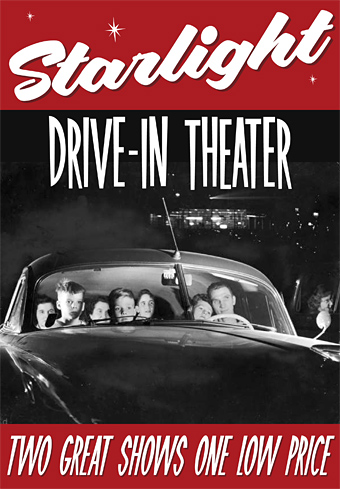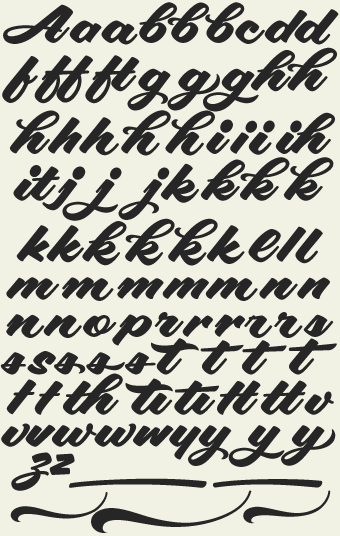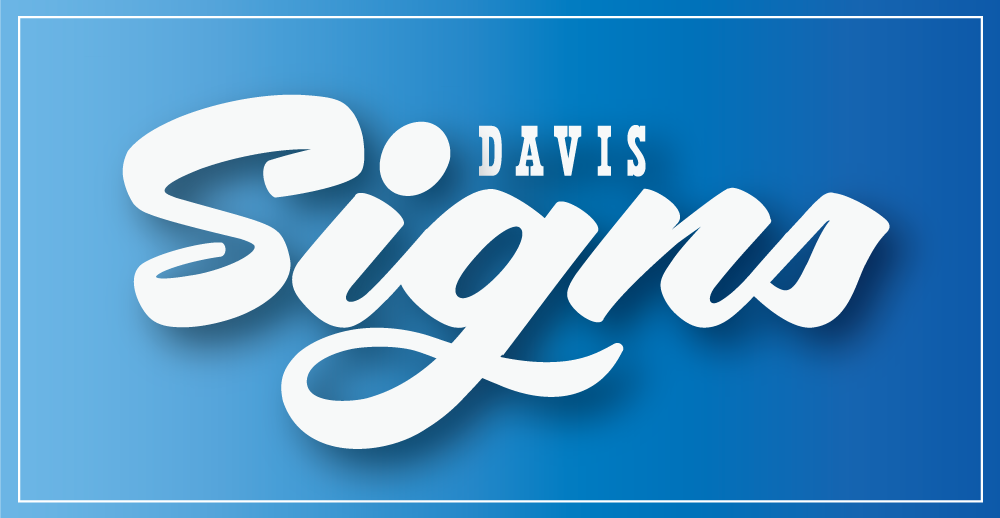
| Aloha Scriptby Charles Borges |
| Veteran sign painter Pierre Tardif and lettering artist Charles Borges have teamed up to bring you these fun to use retro fonts. Each font includes 108 alternate characters and swashes to choose from. Download the printable keyguide here. |
Aloha Script Regular
Aloha Script Casual
Alternates, Ligatures, and Swashes
included in both fonts